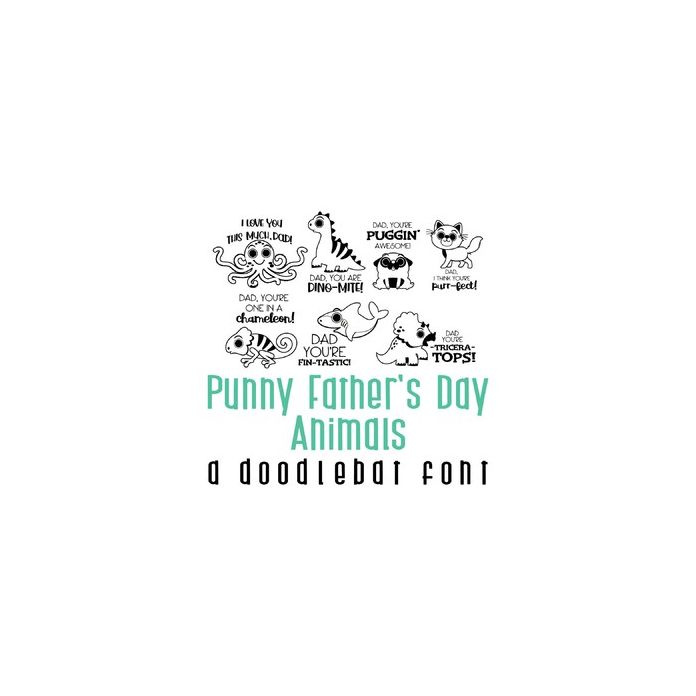
This fun doodlebat font features 26 fun animals and puns perfect for Father's Day. Use it to create fun cards, gifts, decor, crafts, scrap book pages, planner stickers and more!